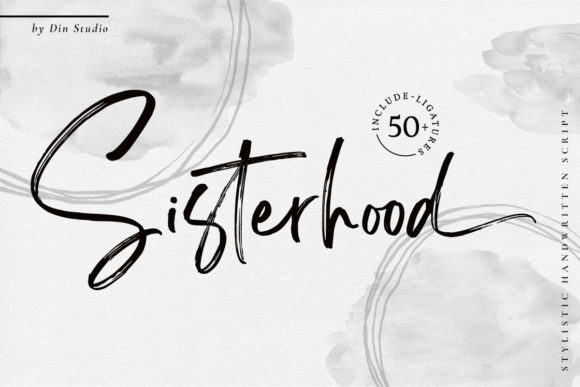
Introducing Sisterhood Font - the perfect addition to your font collection! This stunning display font, created by Din Studio, is designed to add a touch of elegance and personality to your creative projects.
Sisterhood Font boasts a beautiful brush signature style that is sure to captivate your audience. With its classic yet friendly feel, this font is perfect for adding a touch of sophistication to any design.
Looking to create stunning DIY projects? Look no further than Sisterhood Font! Its unique style and intricate detailing make it the perfect choice for bringing your creative ideas to life. Whether you're designing invitations, logos, or any other creative project, Sisterhood Font is the perfect choice.
With its Font Style for Capital Letters, Sisterhood Font is versatile and can be used for a wide range of applications. Its eye-catching design is sure to stand out, making it the perfect choice for anything from product packaging to social media posts.